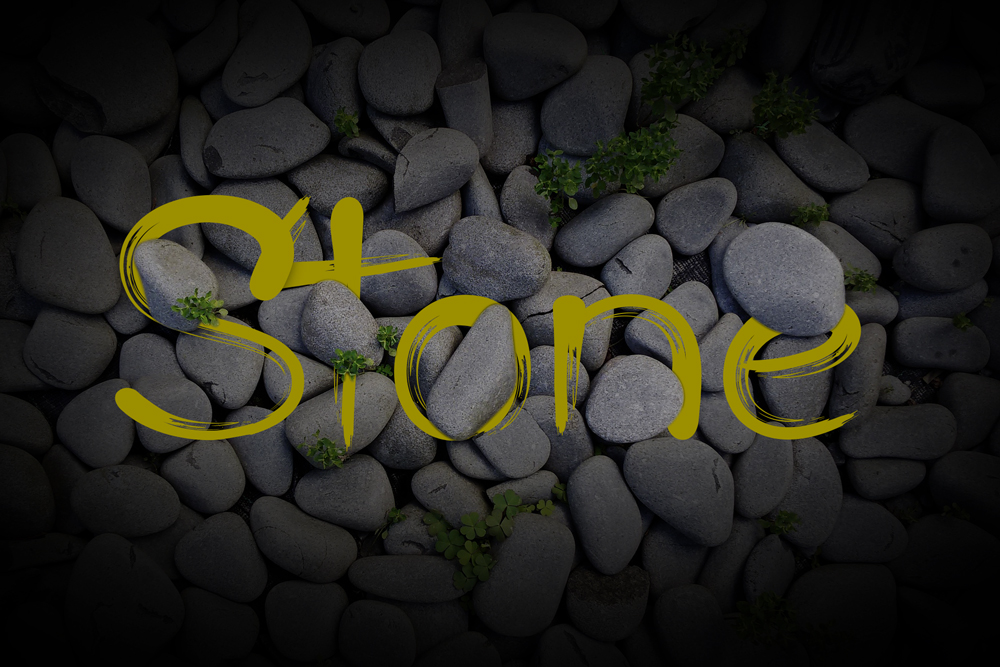
Black Cobra Brush Handwritten Font is textured brush font, contemporary approach to design, handmade natural with an less regular baseline. Suitable for use in title design. Such as apparel, invitations, books tittle, stationery design, quotes, branding, logos, greeting card, t-shirt, packaging design, poster and more.
Black Cobra Brush Handwritten Font includes a complete set of uppercase and lowercase letters, alternate letters, numbers, punctuation, international characters, underlines and ligatures.